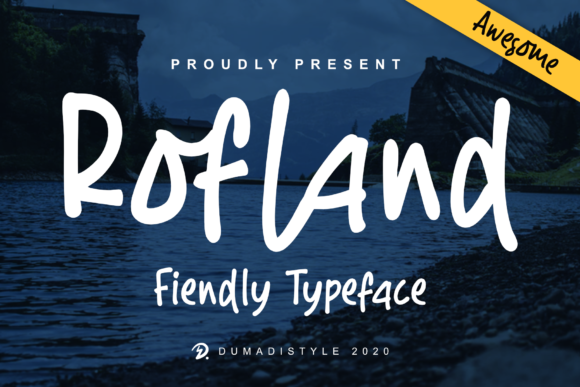
Behold Rofland, the font that will transform the ordinary to the extraordinary! Prepare to be captivated by this playful and whimsical font, a masterpiece crafted by DUMADI, designed to bring an infectious joy and charm to your creative endeavors.
Rofland's unique personality shines through its bouncy strokes and cheerful letterforms. Each character dances playfully across your screen, exuding an infectious happiness that will uplift your spirit and ignite your imagination. Unleash the boundless potential of Rofland, the font that adds a touch of magic to every design.
With Rofland, you'll discover a world of creative possibilities. It's the perfect choice for adding a heartfelt touch to Christmas cards, crafting enchanting invitations for special occasions, or designing whimsical posters that spread joy wherever they go. Its versatility knows no bounds, extending to delightful branding projects, enchanting social media graphics, and any endeavor where a spark of delight is desired.
Picture this: Your Christmas cards come alive with Rofland's jolly dance, carrying warm wishes and heartfelt messages of love and cheer. Your invitations transform into captivating portals, inviting your guests into a realm of enchantment and anticipation. And your posters become irresistible works of art, beckoning passersby with their irresistible charm.
But Rofland's magic extends far beyond the realm of holiday cheer. It's a font that infuses joy and playfulness into every project it graces. Watch as your designs blossom with newfound vibrancy, captivating your audience with their infectious charm.
Rofland is not just a font; it's an experience. It's a gateway to a world where creativity knows no limits, where imagination runs wild, and where joy permeates every corner. Embrace the magic of Rofland and let your designs dance with delight.